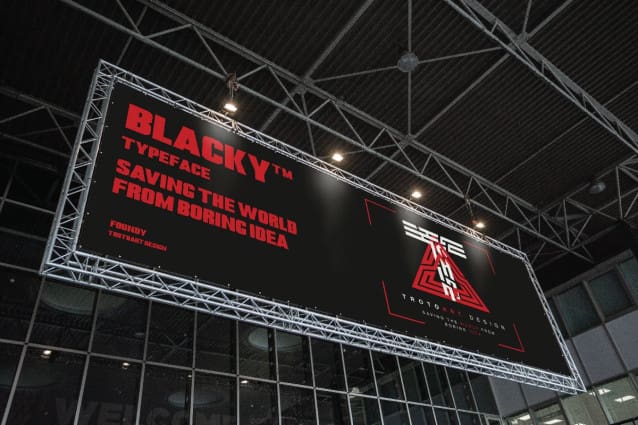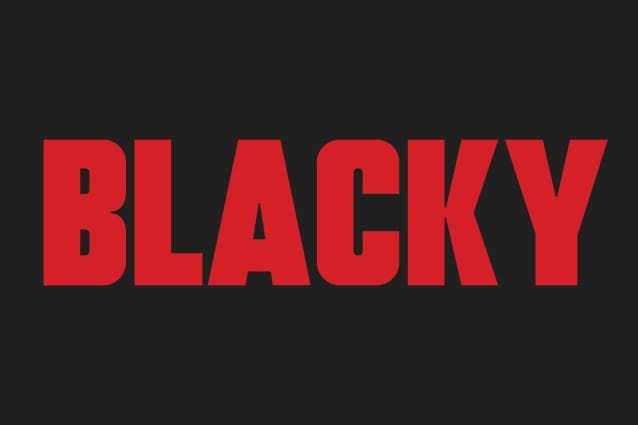
Blacky Font
Blacky Font is a powerful and elegant display typeface. Inspired by design styles that are currently trending, and this is the answer to the design ideas that you will apply in this modern era, with a thick and strong style in each letter of the Blacky font as it is specialized in the world of design.